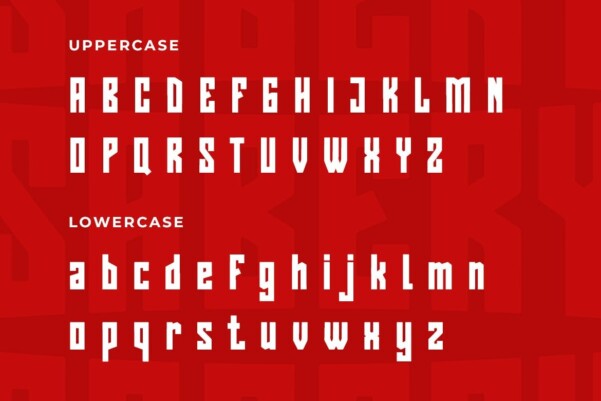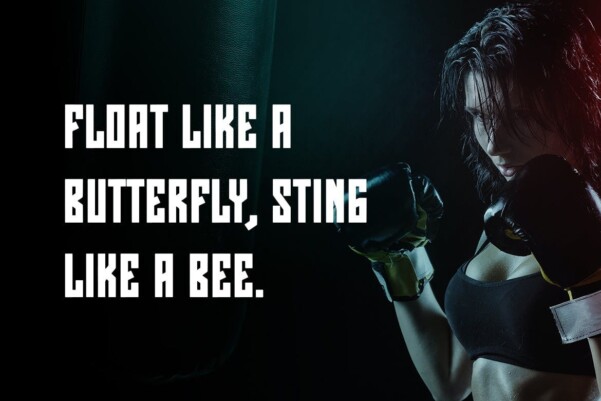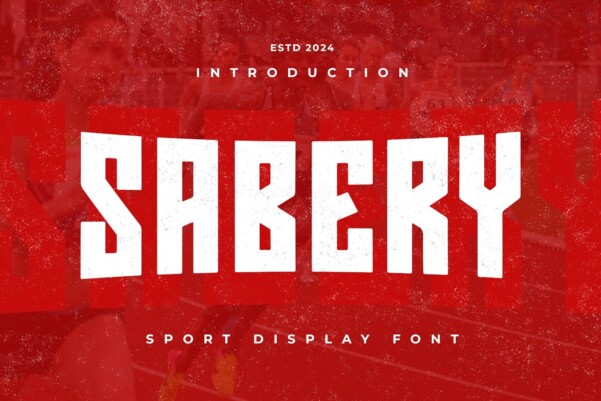
Sabery Font
Designer: Enative
Sabery Font is a unique display typeface perfect for titles, large text, branding, logotypes & graphic design purposes such as posters, pamphlets, and advertisements. This letter font can be a great choice for creating amazing logos, promotional content, and marketing presentations that can bring uniqueness and freshness at its best.